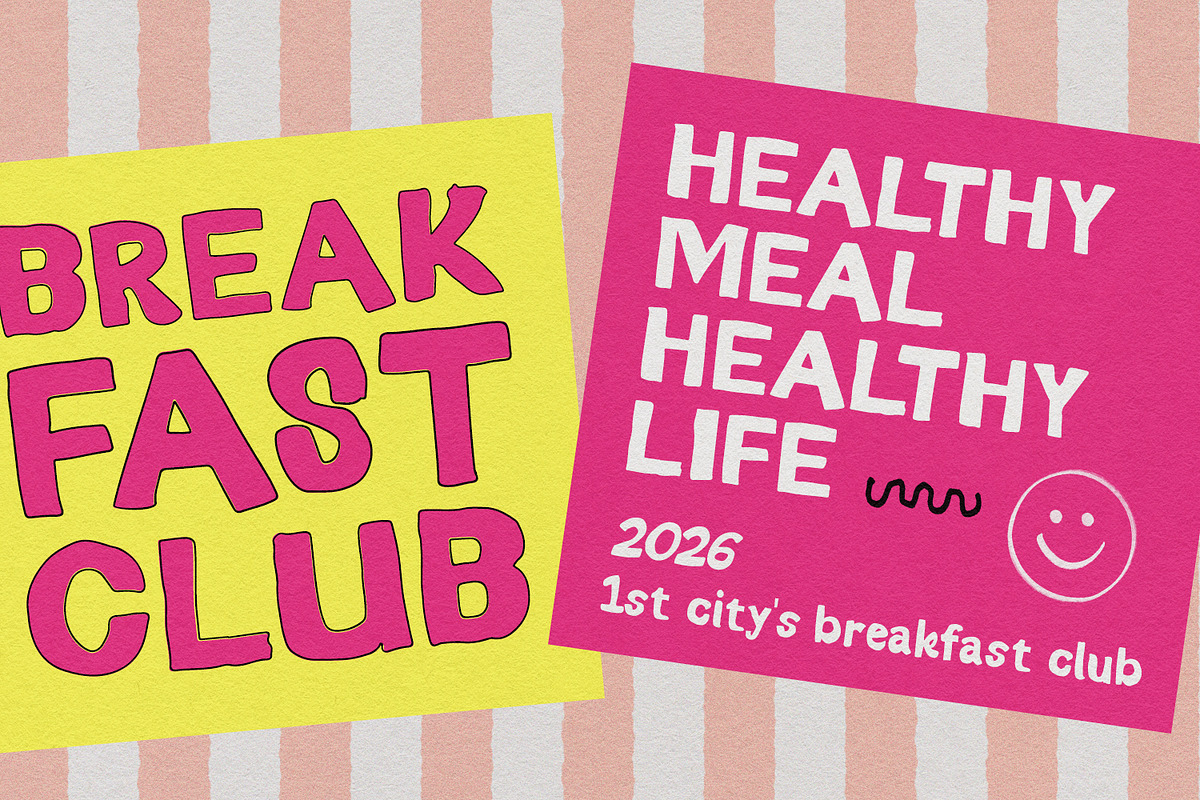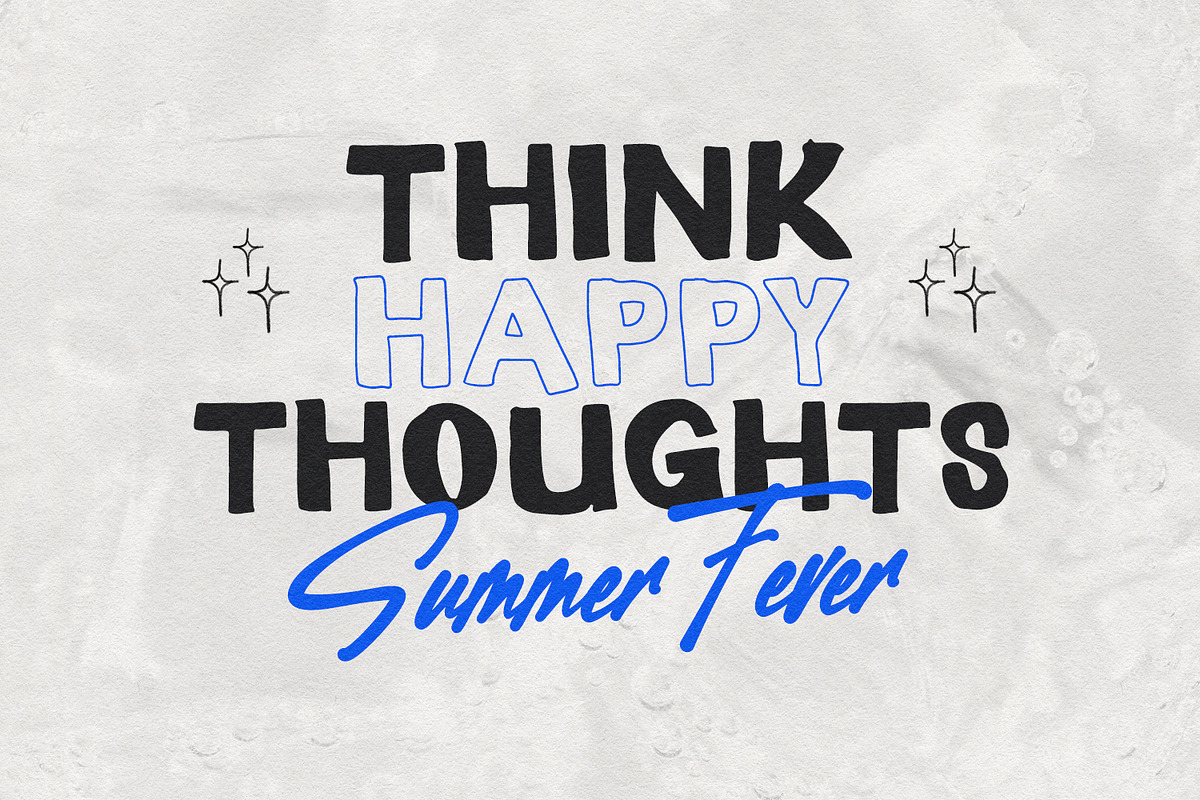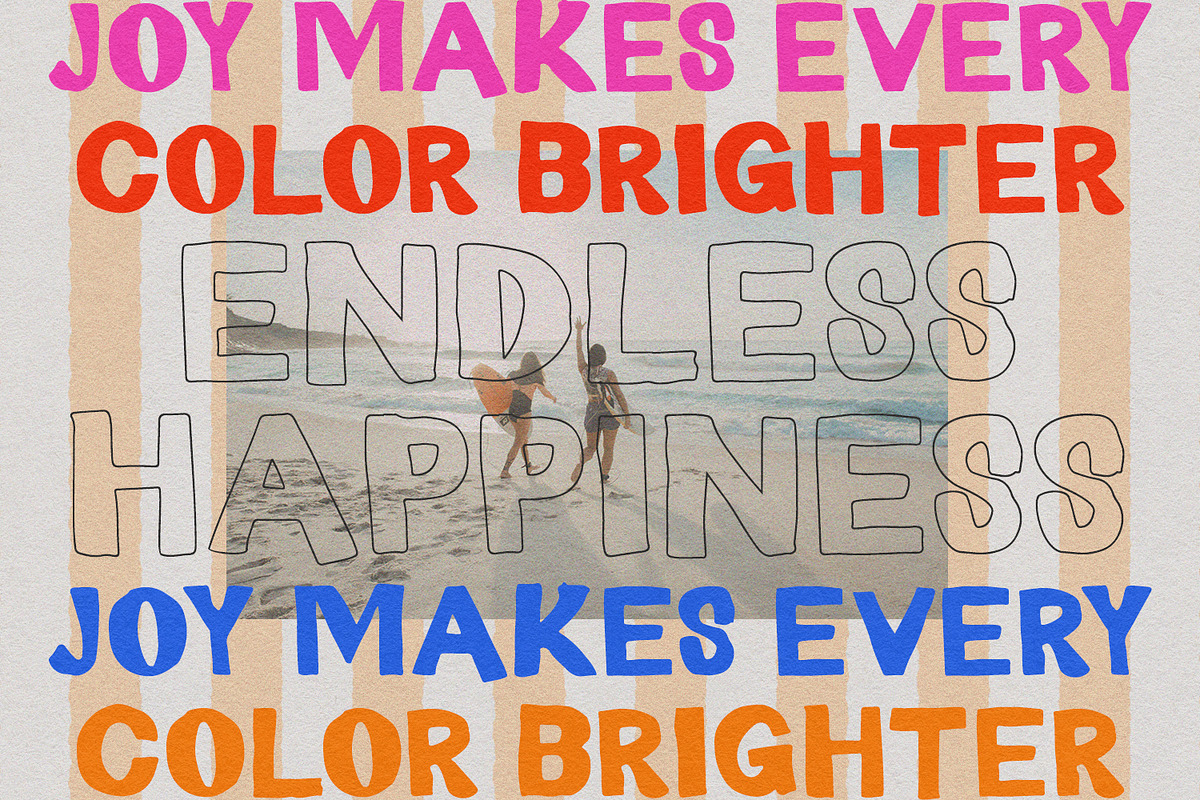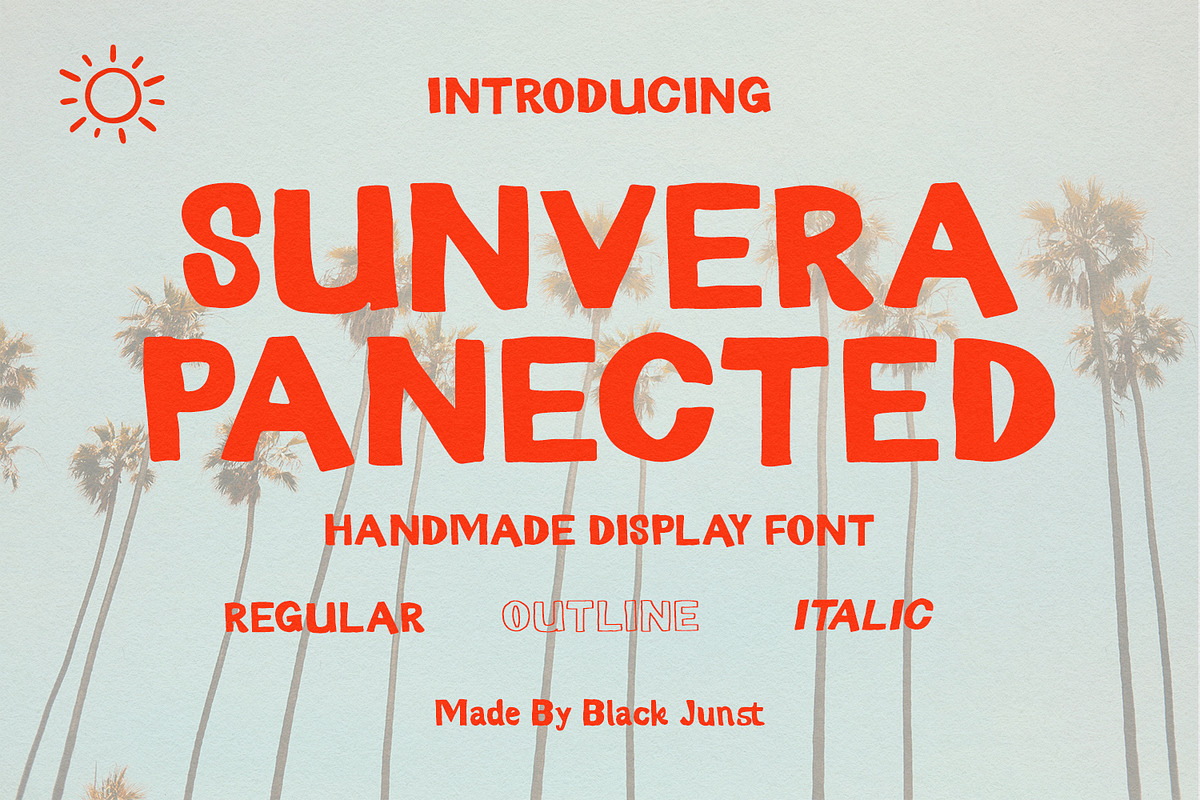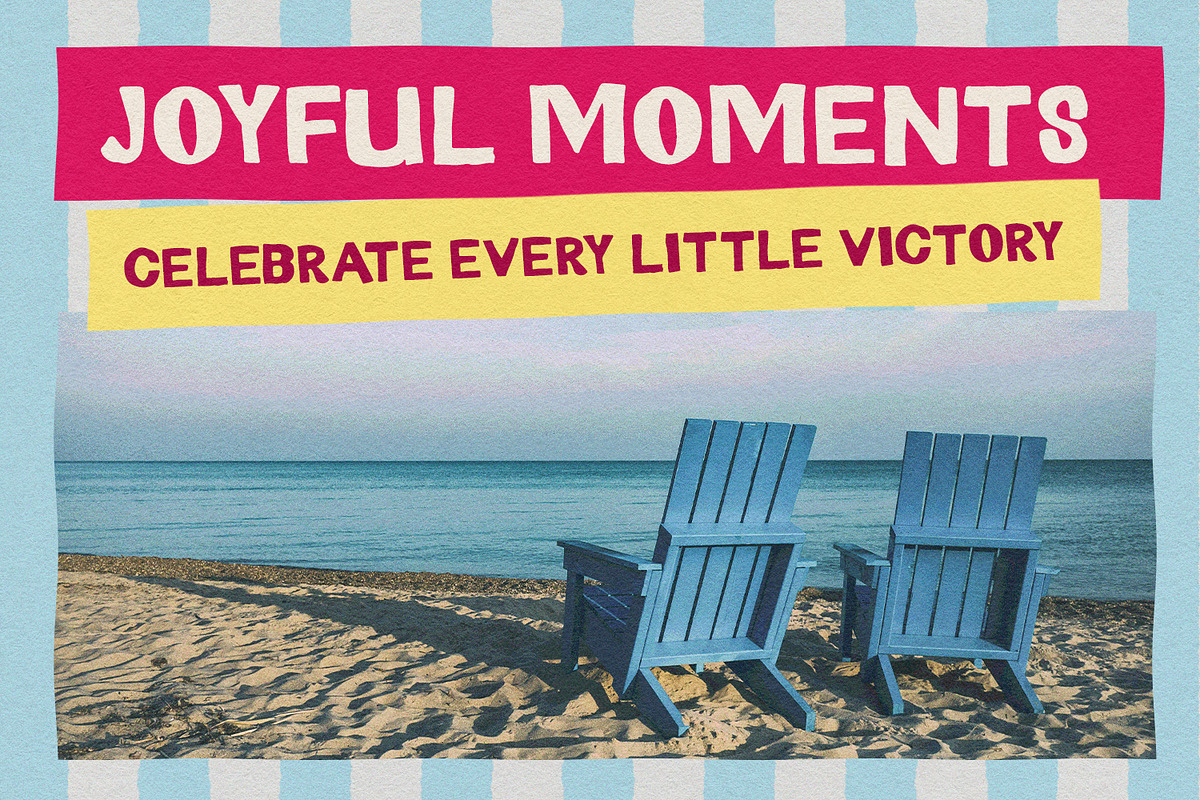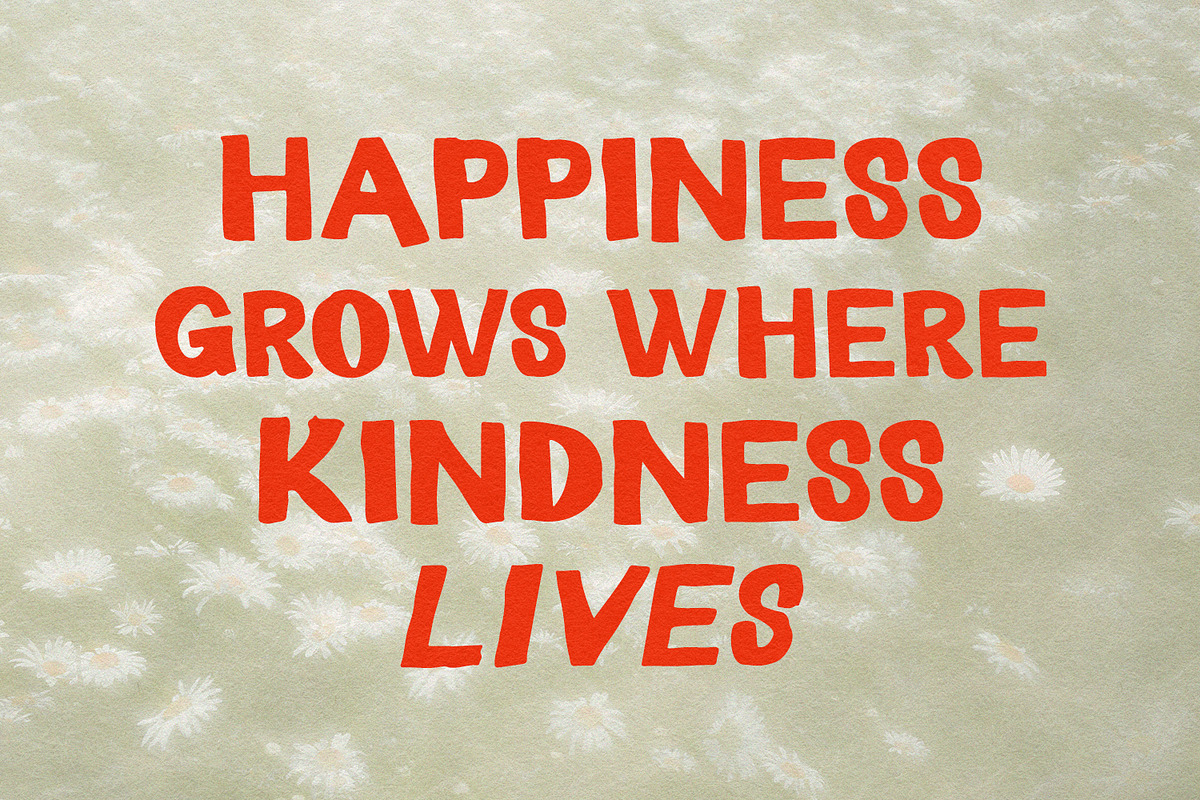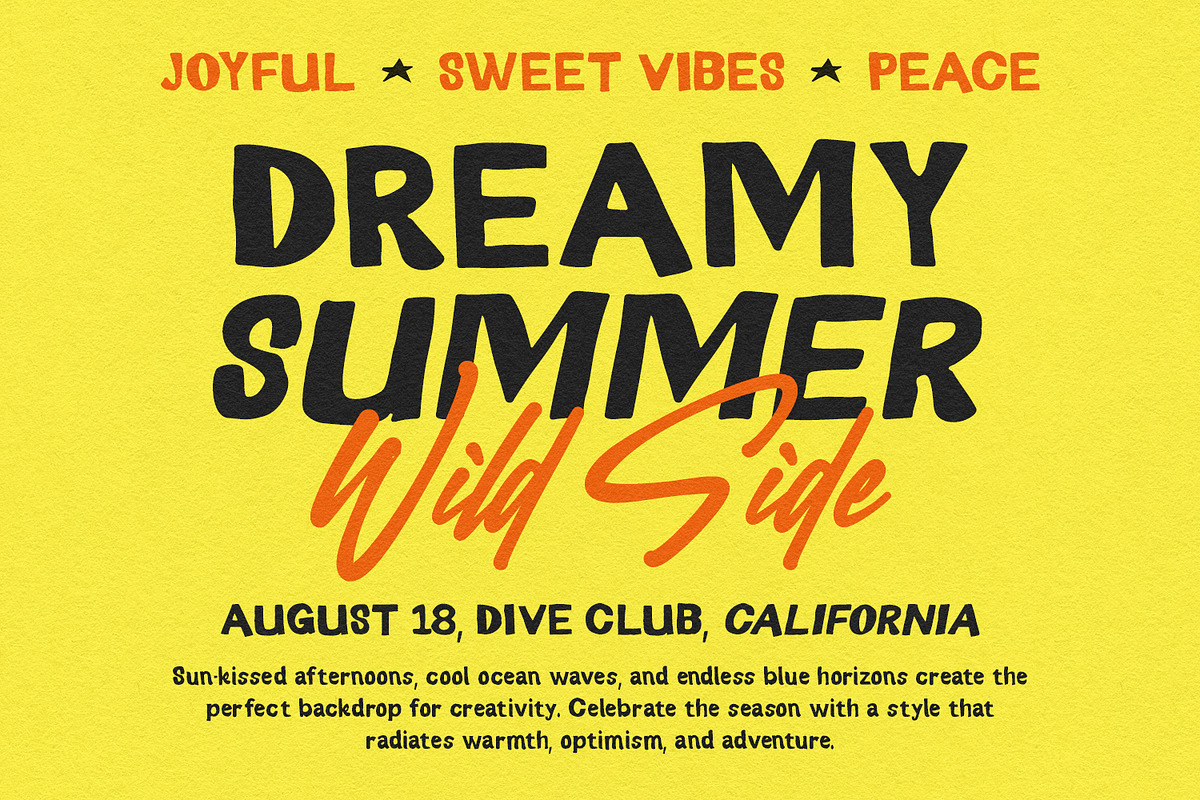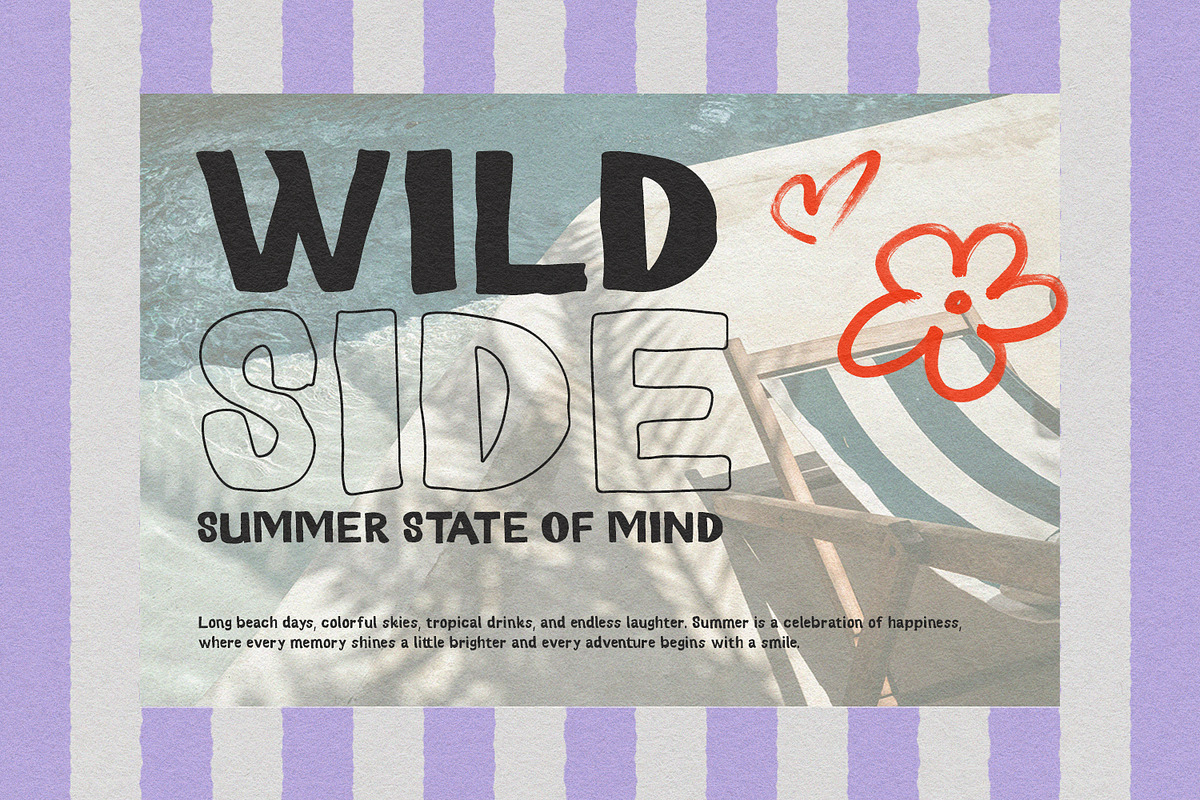
Sunvera Panected
Sunvera Panected – Handmade Display Font
Meet Sunvera Panected, a bold handmade display font crafted to give your designs a warm, playful, and handcrafted personality. Every character is carefully drawn to create an authentic organic look while maintaining excellent readability across both print and digital projects.
The family includes 3 versatile styles—Regular, Italic, and Outline—allowing you to mix and match for eye-catching typography, layered effects, and unique branding compositions.
Whether you're creating logos, product packaging, apparel graphics, posters, social media content, or editorial headlines, Sunvera Panected delivers a handcrafted aesthetic that instantly grabs attention.
Its slightly imperfect curves and natural stroke variations make it perfect for designers looking for a font that feels friendly, creative, and full of character.
Branding Identity
Food Branding
Beverage Labels
Summer Collections
Beach & Tropical Themes
Apparel & Streetwear
Posters
Magazine Headlines
Social Media
Advertising
Stickers
YouTube Thumbnails
Children's Products
Café Branding
Restaurant Menus
Craft Projects
Sunvera Panected Regular
Sunvera Panected Italic
Sunvera Panected Outline
Why You'll Love Sunvera Panected
Sunvera Panected combines the charm of handmade lettering with the flexibility of a modern display font. Whether you're designing for commercial branding, packaging, fashion, or social media, its bold handcrafted style helps your work stand out with personality and originality.